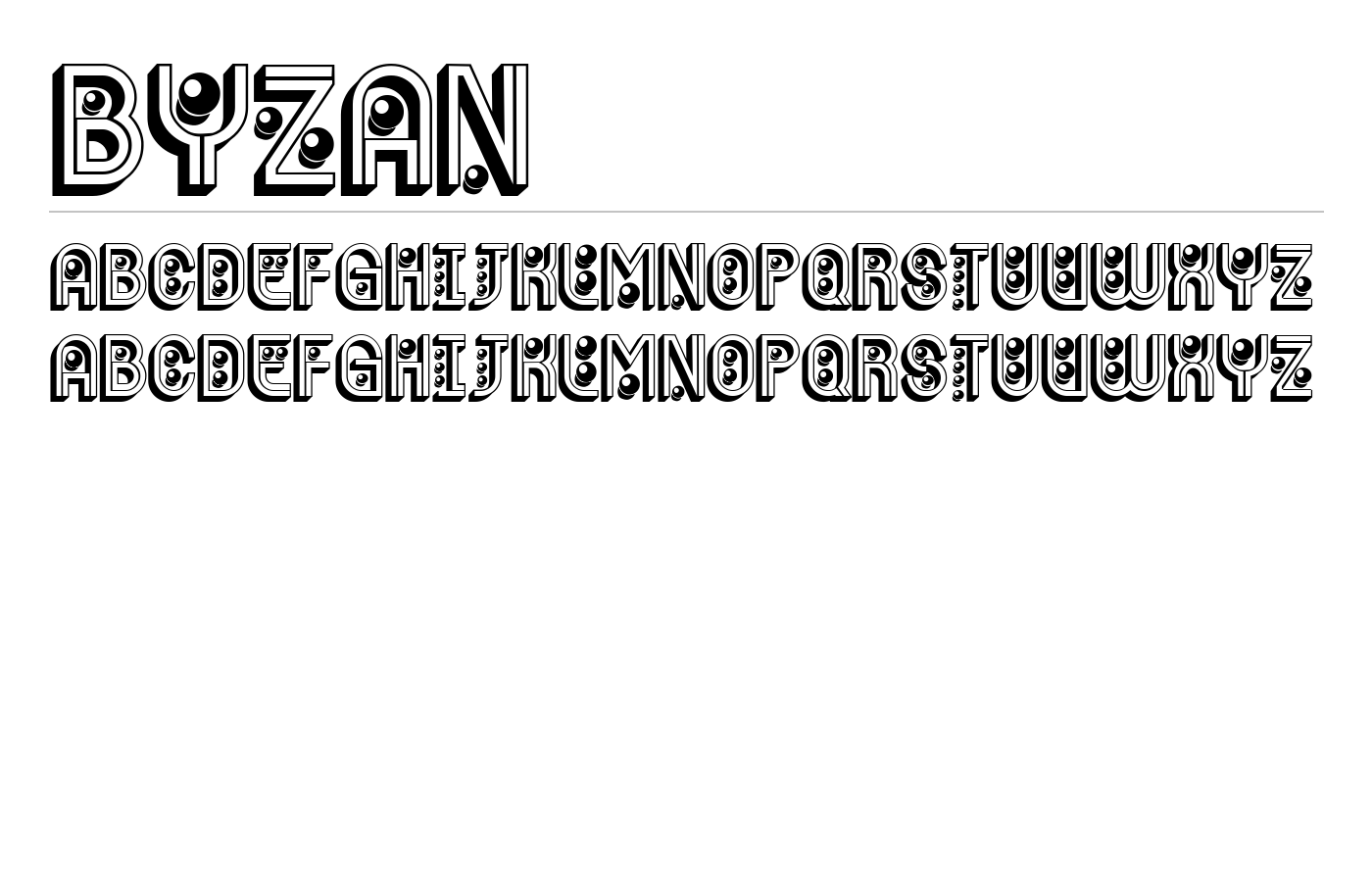
Byzan is a bold, decorative display font featuring a unique layered, three-dimensional effect with geometric shapes and dot embellishments that give it a playful, modern, and slightly retro feel. Its all-caps design with tight letterforms and striking contrast between solid and outlined strokes makes it ideal for eye-catching headlines, logos, and creative branding that seeks to stand out with a distinctive, artistic flair. This font works best in large sizes where its complex details can truly shine, making it unsuitable for body text but perfect for posters and packaging needing a bold, imaginative touch.
Byzan Font
About Byzan Font
| Font family | Byzan Font |